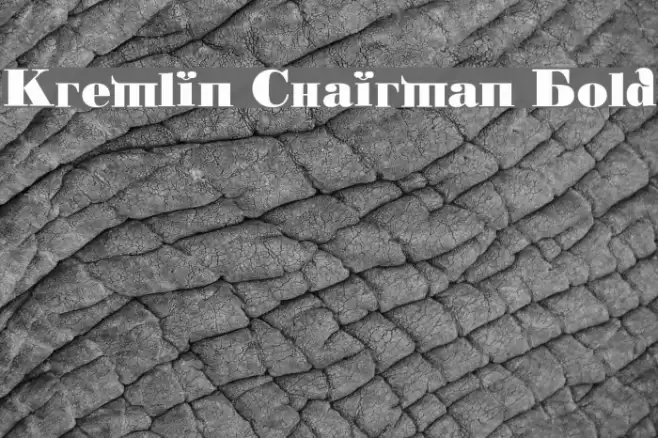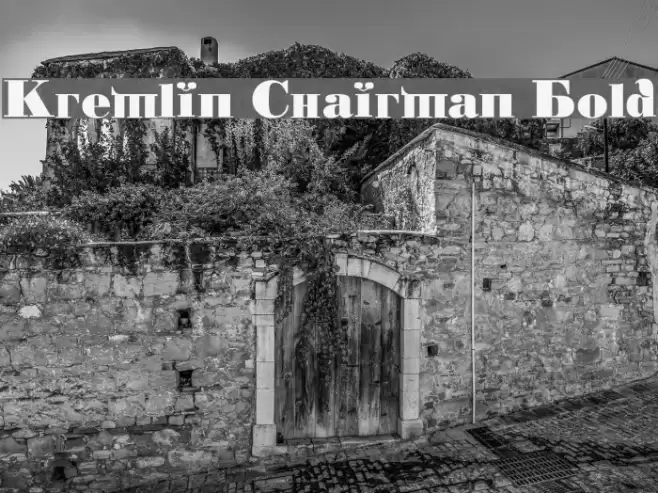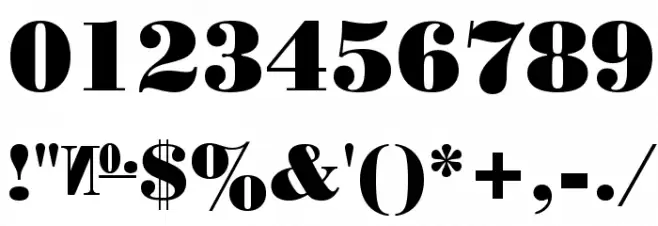
Kremlin Chairman Bold Font
Kremlin Chairman Bold Description
This font features a bold and striking design with a strong presence. The characters are heavily stylized, with thick strokes and unique serifs that give it a distinctive look. The uppercase letters are particularly prominent, with a sense of grandeur and authority. The lowercase letters maintain the boldness while offering a slightly softer touch. Numbers and special characters are equally bold, ensuring consistency across all elements. The font's design is reminiscent of traditional serif styles but with a modern twist, making it suitable for impactful and attention-grabbing projects.
A bold, stylized serif font with a strong and authoritative presence from Uncategorized fonts.
- Proposed Projects: Ideal for headlines, posters, branding, and any design requiring a bold statement.